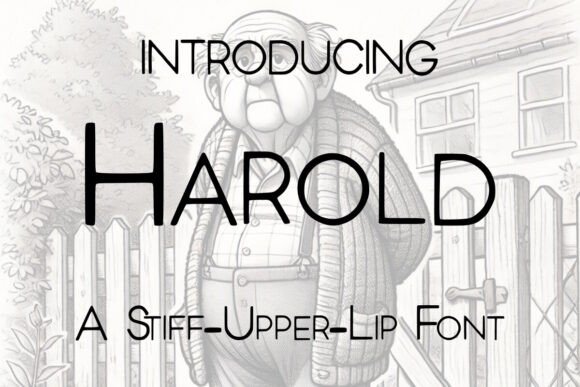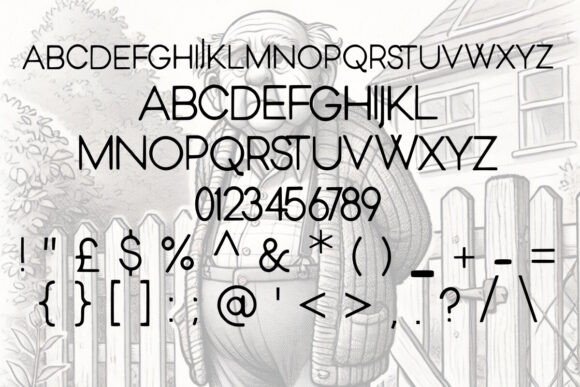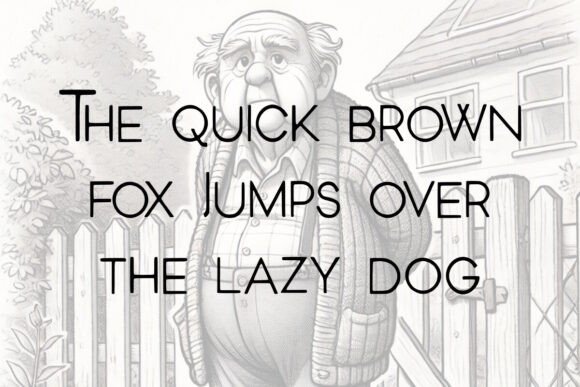
Harold Font
About the Harold Font
Step up your design game with Harold Font, a font that exudes confidence and style. Meet Harold, the font that captures the spirit of an old-school gentleman who’s been putting up with Hilda’s gossip for far too long. With its clean, no-nonsense lines and a slightly weary charm, Harold brings a refined yet approachable style to your designs. Perfect for when you need something stylish but not too flashy—just like Harold himself, quietly reading his newspaper while Hilda leans over the fence.
Harold’s refined, yet approachable personality makes it ideal for headlines, logos, and short-form text in branding materials and posters. Its legibility shines in applications requiring a touch of classic elegance without sacrificing readability. Avoid using Harold for body copy or lengthy paragraphs; its charm is best deployed sparingly.
Pairing Harold with a clean sans-serif like Open Sans for body text creates a balanced and sophisticated aesthetic. For a more playful feel, consider pairing it with a slightly quirky script font. A geometric sans-serif could also work well, providing a modern counterpoint to Harold’s traditional feel.
Ultimately, Harold exudes a quietly confident and dependable personality. It’s the perfect choice for brands that value understated sophistication and timeless appeal.
Harold Font Usage Examples
Harold Font Example